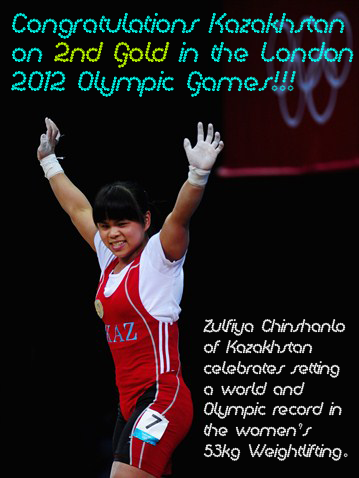
• Inspired from Yautja's Advancer, but here I wanted dots to not overlap. They don't touch and approximately have same distance from one another. Turned them into pearls or bubbles, to make it more interesting. Needs tweaking here and there. This was and is fun to make :) Enjoy.
Great! Glad to have inspired you. I like the ligatures (like "ls").
Maybe the comma tail could be more curved? I also prefer the text figures.
The word Pearl in your sample really looks like a pearl :) Thanks!
Thanks, It's in progress, so, maybe I'll manage comma. Here's a sample showing some ligatures:
Great flow, love the way some of the letters link up.
Beautiful! 10/10
I think it's very pretty!
Very nice dot font. 10/10
Curvy!
Dots forever.
Awesome font! Love the ligatures and the way the pearls/dots/bubbles shine. 10/10
Cool font‼ 10/10